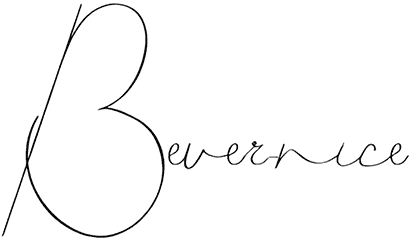
Bevernice Font
Bevernice is a masterful blend of elegance, classic, and softness that suits a wide set of graphic content ranging from posters, gift cards, greeting cards, social media posts, and magazines that require a personalized touch.
This thin font has a cursive style with well-rounded curves that dance along the baseline, thus conveying a sense of precision and professionalism. We offer you to overlook the lack of numbers and utilize this typeface with peace of mind.